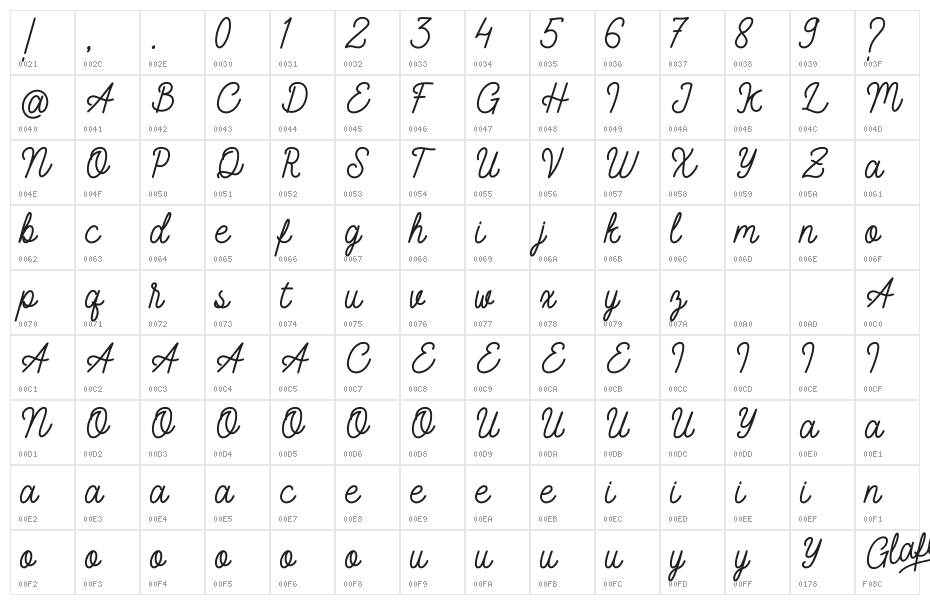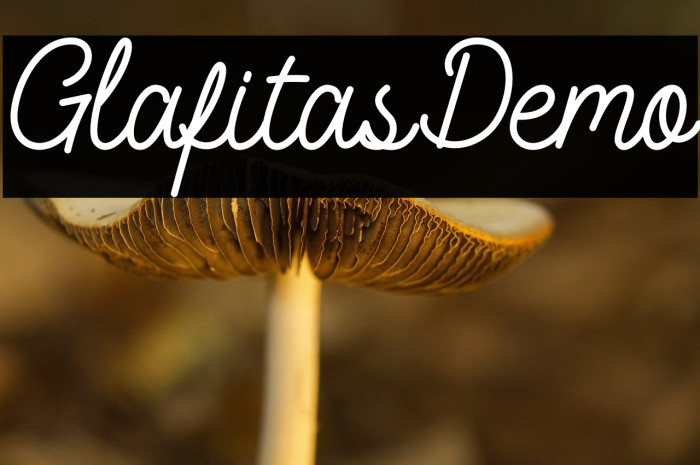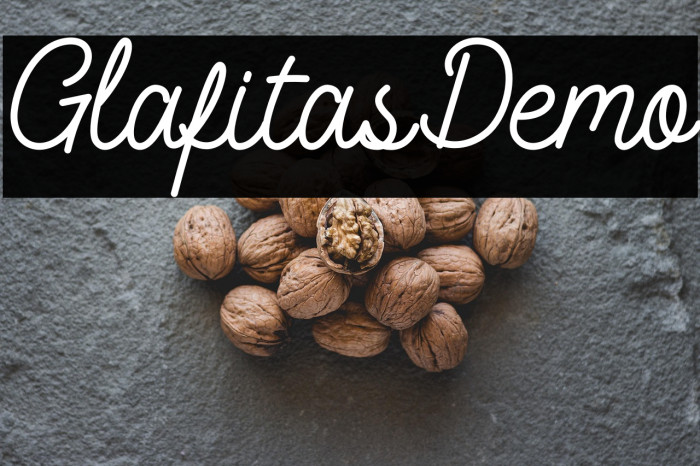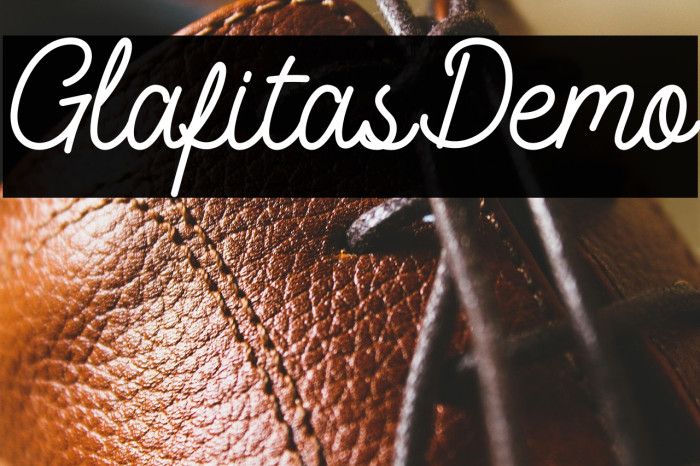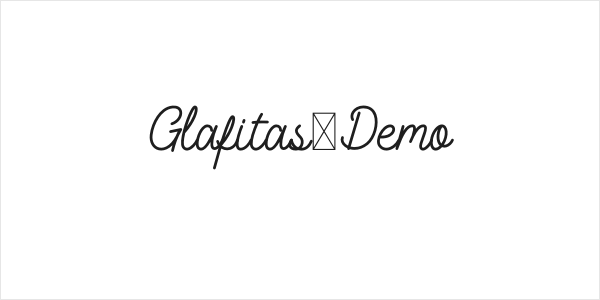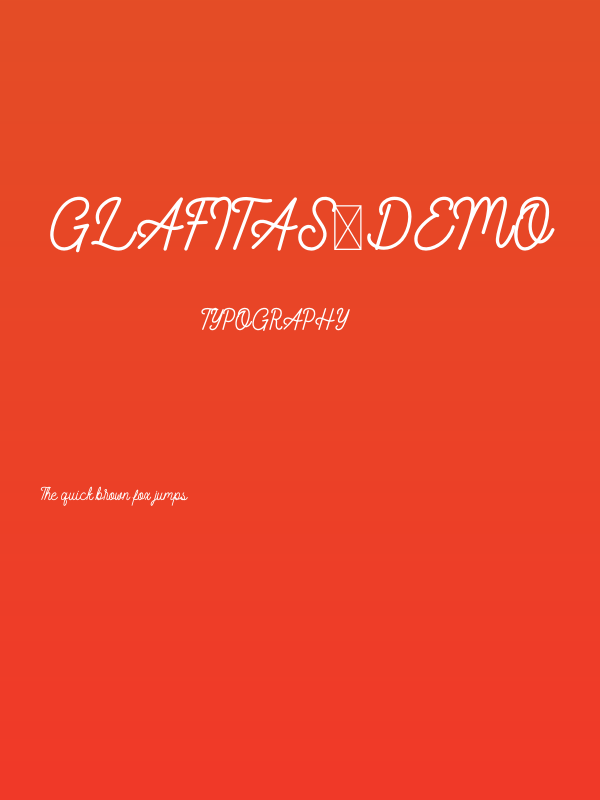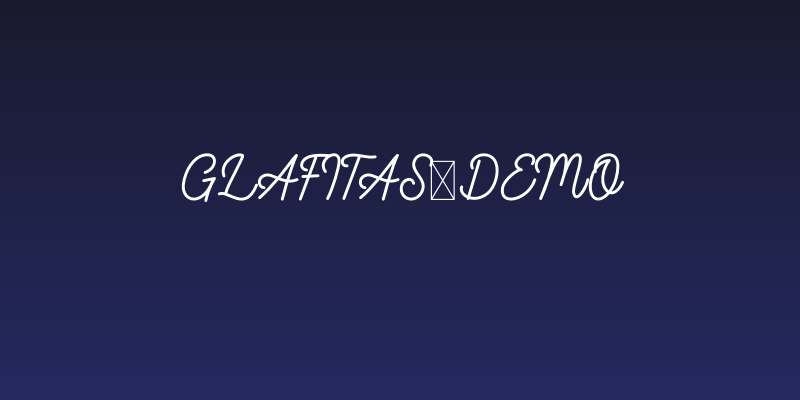
Glafitas-Demo Font
Glafitas-Demo Description
This font features a flowing, cursive style with smooth, rounded edges and a consistent stroke width. The letters are interconnected, giving it a handwritten appearance that is both elegant and casual. The uppercase letters maintain a uniform height, while the lowercase letters have a slight slant, enhancing the fluidity of the design. Numbers are clear and legible, matching the overall aesthetic. The font's playful yet sophisticated look makes it suitable for a variety of creative applications.
| Proposed Projects | Ideal for wedding invitations, greeting cards, personal branding, and creative projects that require a touch of elegance and personality. |